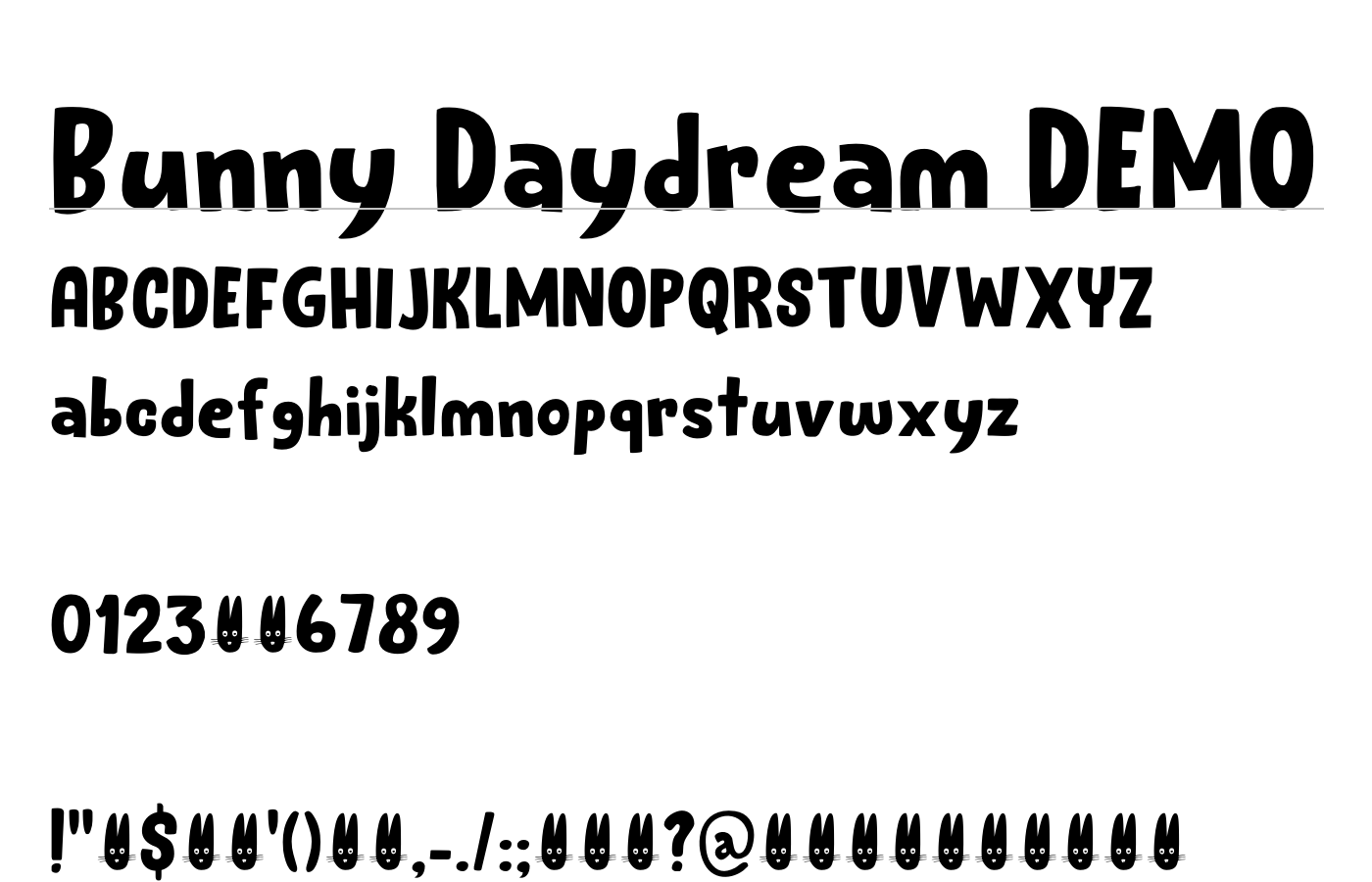
Bunny Daydream DEMO is a playful and rounded sans serif font with a bold weight and a friendly, casual vibe. Its slightly condensed letterforms and unique bunny-themed glyphs add a whimsical character, making it perfect for children's books, playful branding, and fun, informal designs. This font shines in creative projects where a lighthearted, approachable tone is desired.
Bunny Daydream DEMO Font
About Bunny Daydream DEMO Font